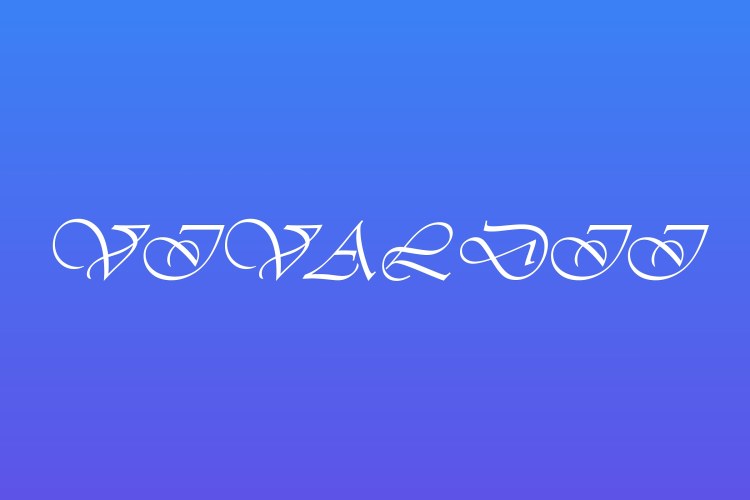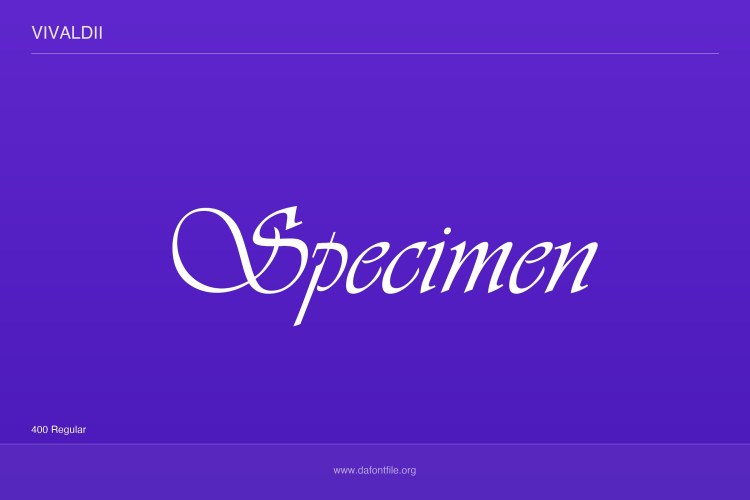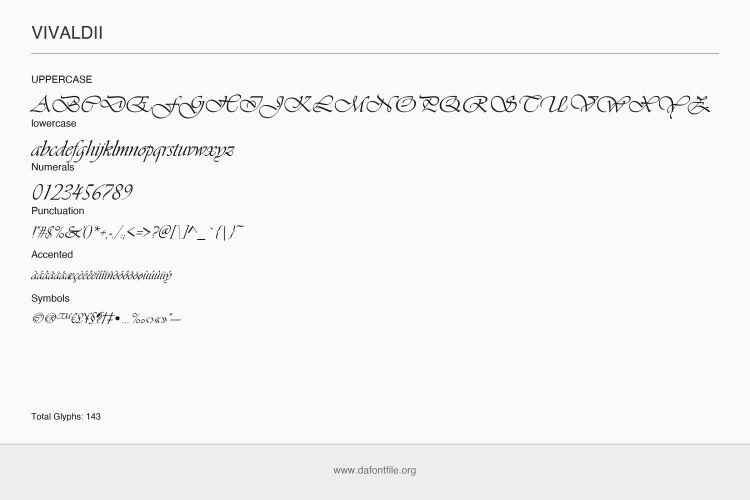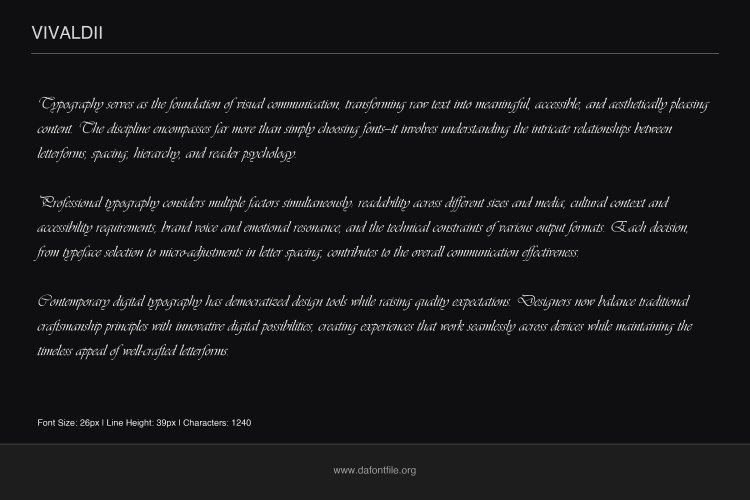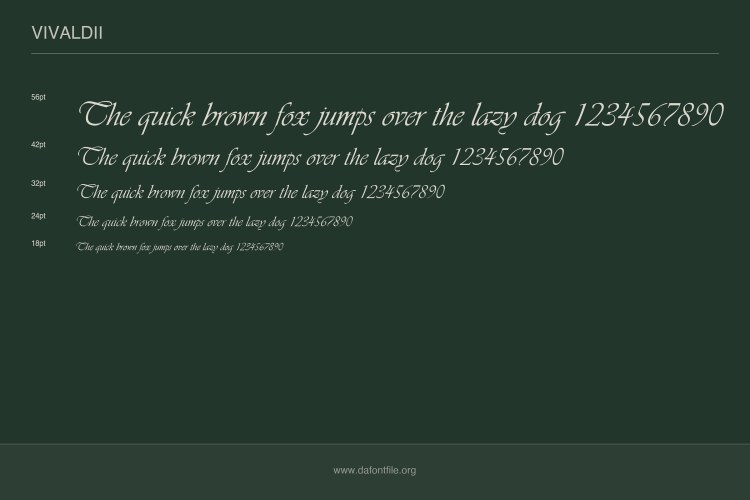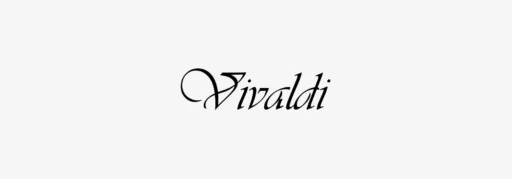
Vivaldi Font
Vivaldi is an elegant script font with flowing, calligraphic strokes. Its graceful style adds beauty to invitations, certificates, logos, and branding projects. Designers use Vivaldi when they want to give text a classic, decorative look that feels both formal and timeless.
Vivaldi Font is a Handwriting Fonts font that brings a professional and versatile look to your projects. Vivaldi is an elegant script font with flowing, calligraphic strokes.